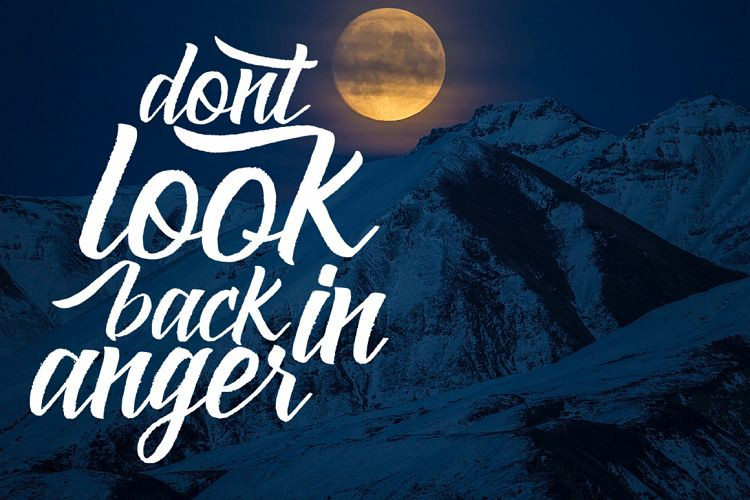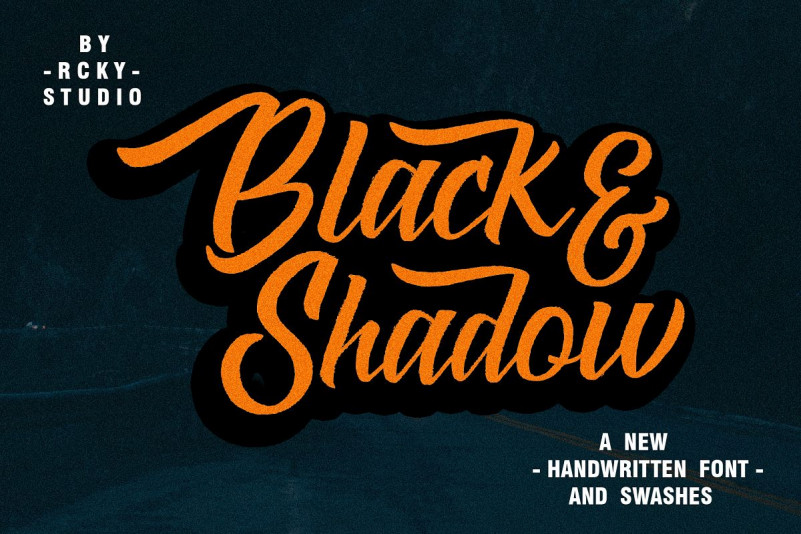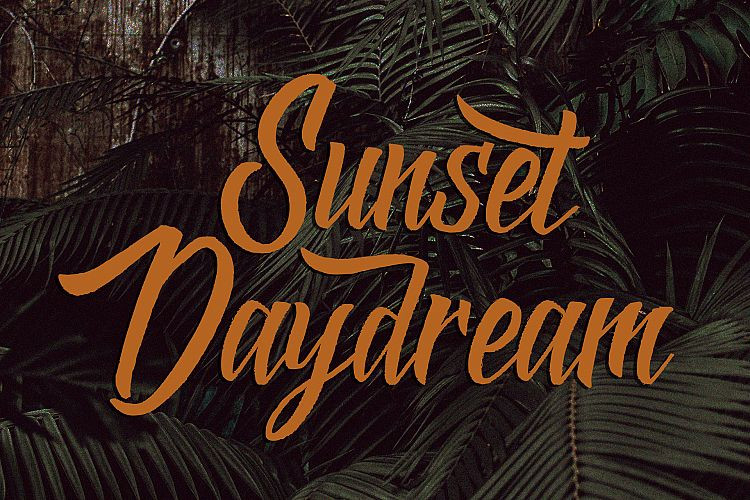
Black & Shadow Font Script Font
Black and shadow is a handwritten brush font, a contemporary approach to design,suitable for use in title design such as clothing, invitations, book titles, stationery designs, quotes, branding, logos, greeting cards, T-shirts, packaging designs, posters, and more.
Contains a complete set of lowercase, uppercase, alternates, ligatures, punctuation, numbers, and multilingual support.